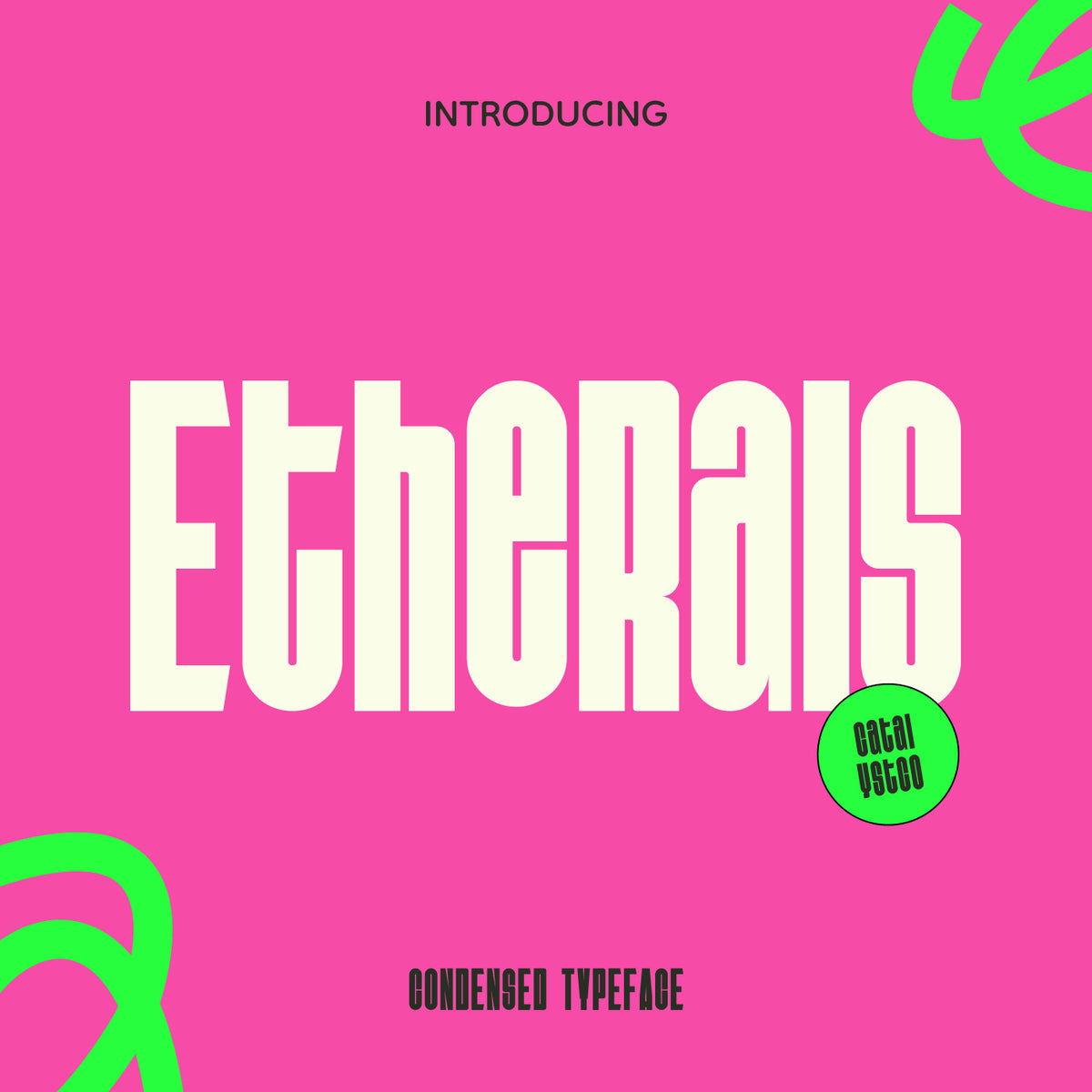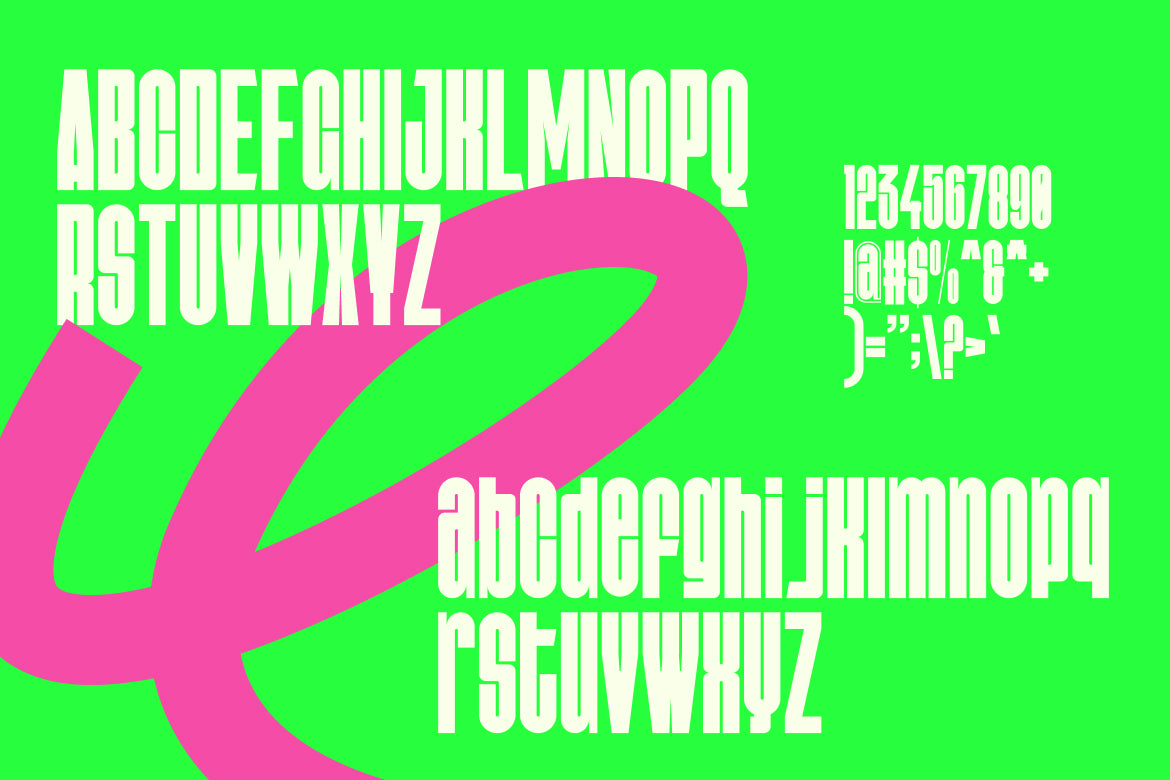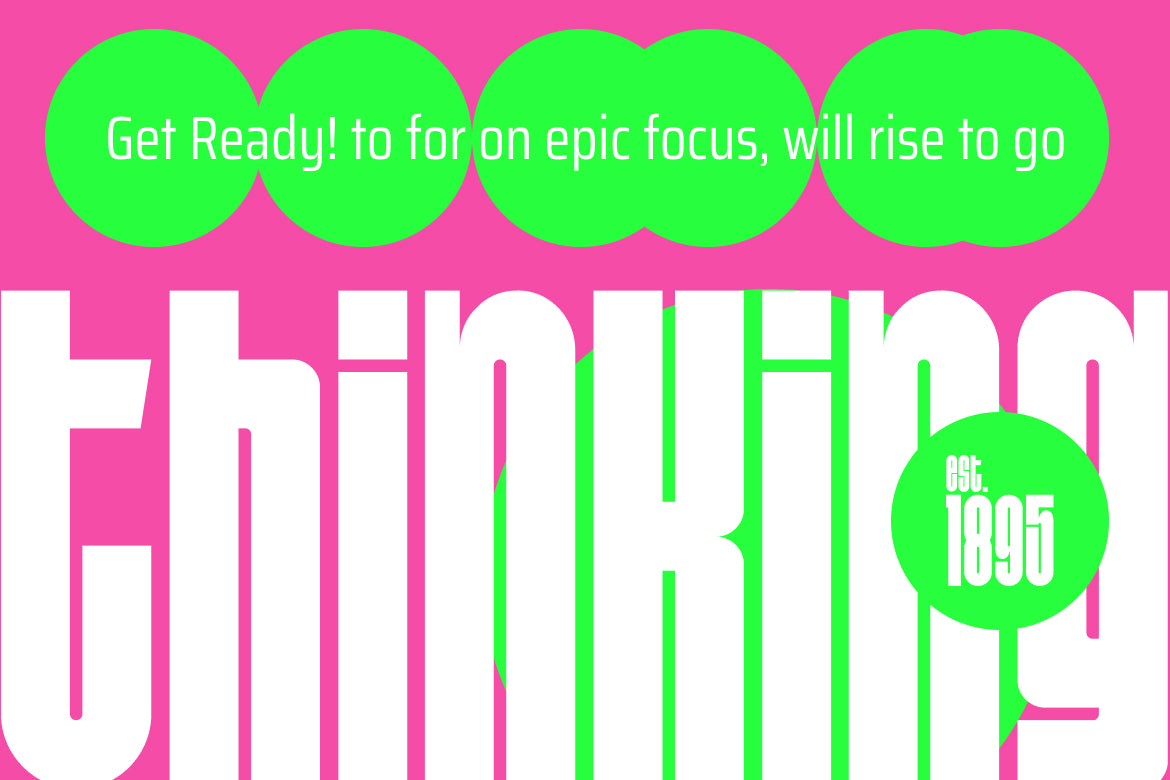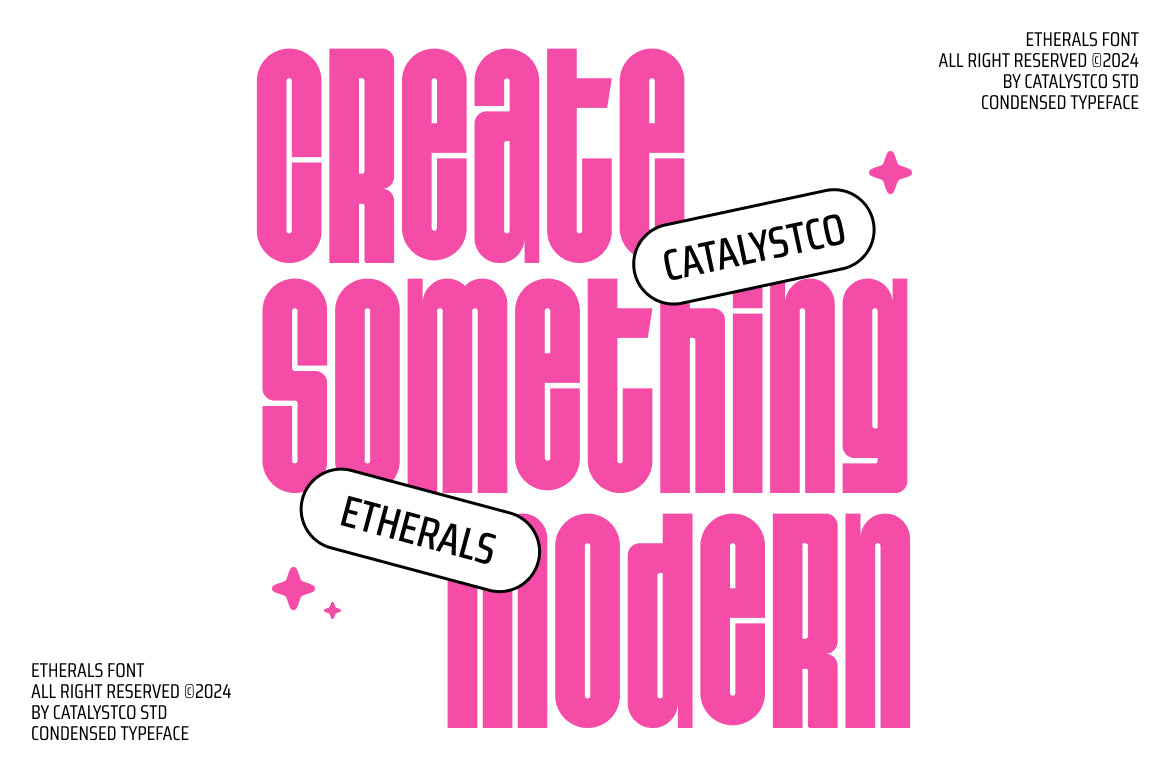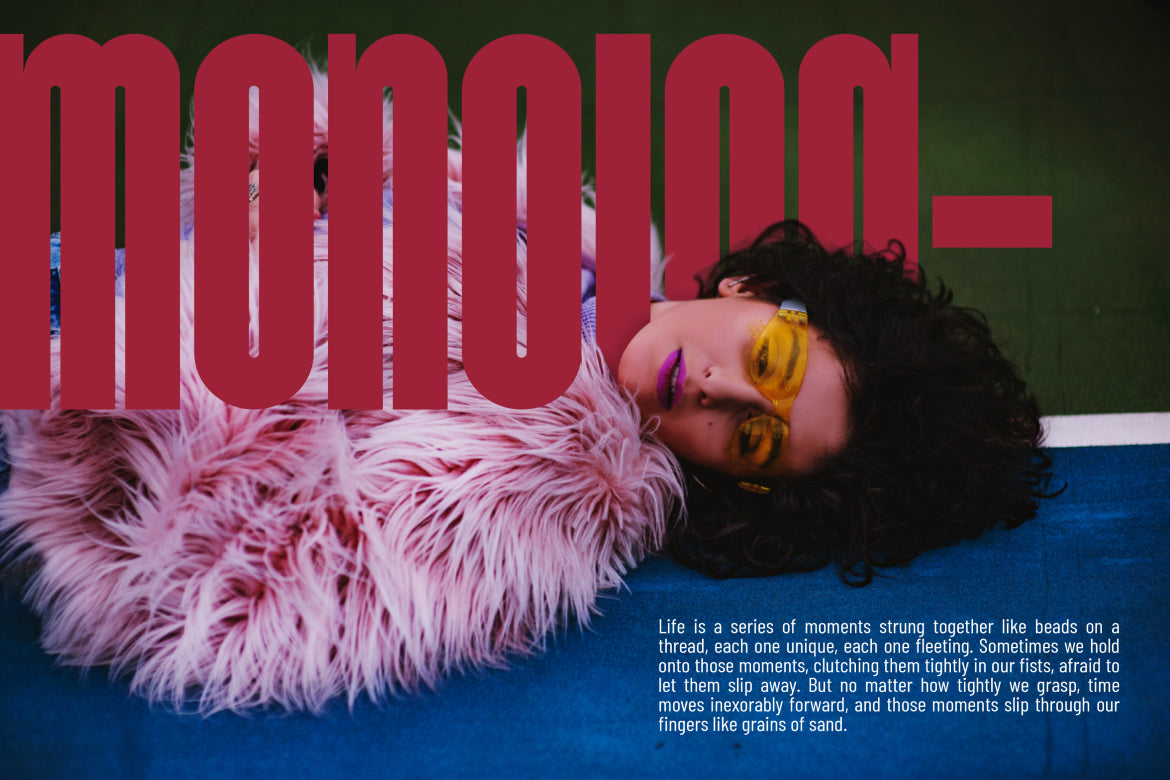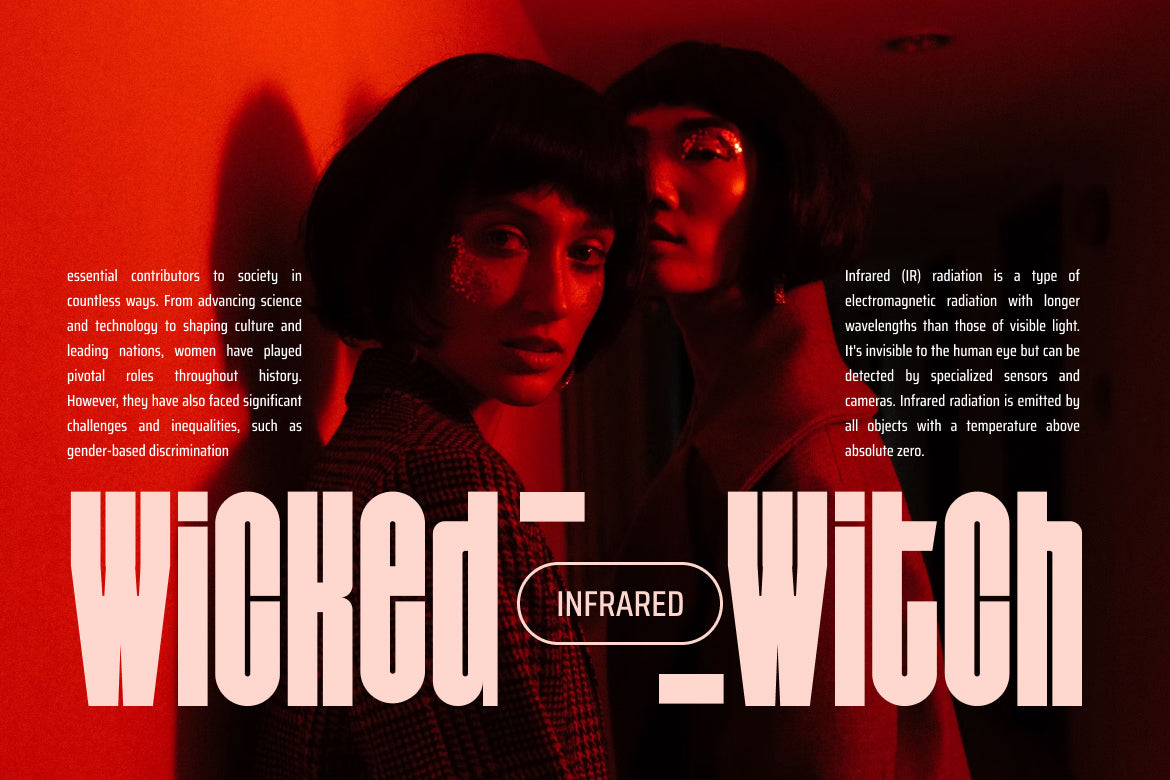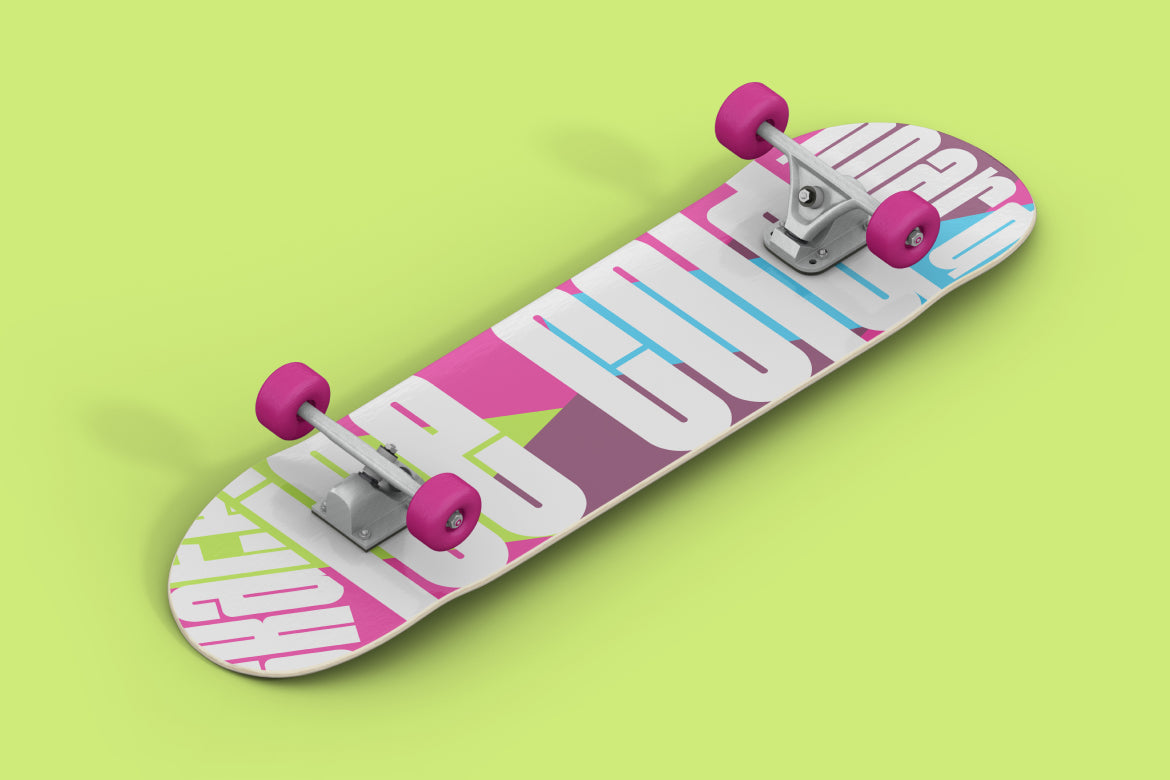
Etherals Condensed Typeface Font
Etherals is a bold condensed display typeface with tall, narrow letterforms and a distinctive contemporary character. Its uppercase shapes are vertically elongated with compact proportions, strong strokes, and subtly softened corners that give the typeface a clean yet expressive appearance. The lowercase characters maintain the same condensed structure while introducing rounded curves and distinctive terminals, creating a consistent visual rhythm across different letter combinations. Its narrow construction allows large words to create strong impact without taking up excessive horizontal space.
Relevance and Use Case is perfect for design projects that need bold typography with a tall, condensed silhouette and strong visual hierarchy. Its narrow proportions work particularly well for editorial covers, fashion campaigns, posters, magazine headlines, packaging, logos, social media graphics, event artwork, advertising layouts, and promotional materials. Designers can use it for large titles and short statements where the typography needs to dominate the composition, while pairing it with a simpler font for secondary information and body copy.
Etherals is a bold condensed display typeface featuring tall, narrow letterforms with strong strokes and softened corners in uppercase, and rounded curves with distinctive terminals in lowercase. It includes TTF, OTF, and WOFF formats, with uppercase and lowercase characters, ligatures, alternates, numerals, and punctuation.